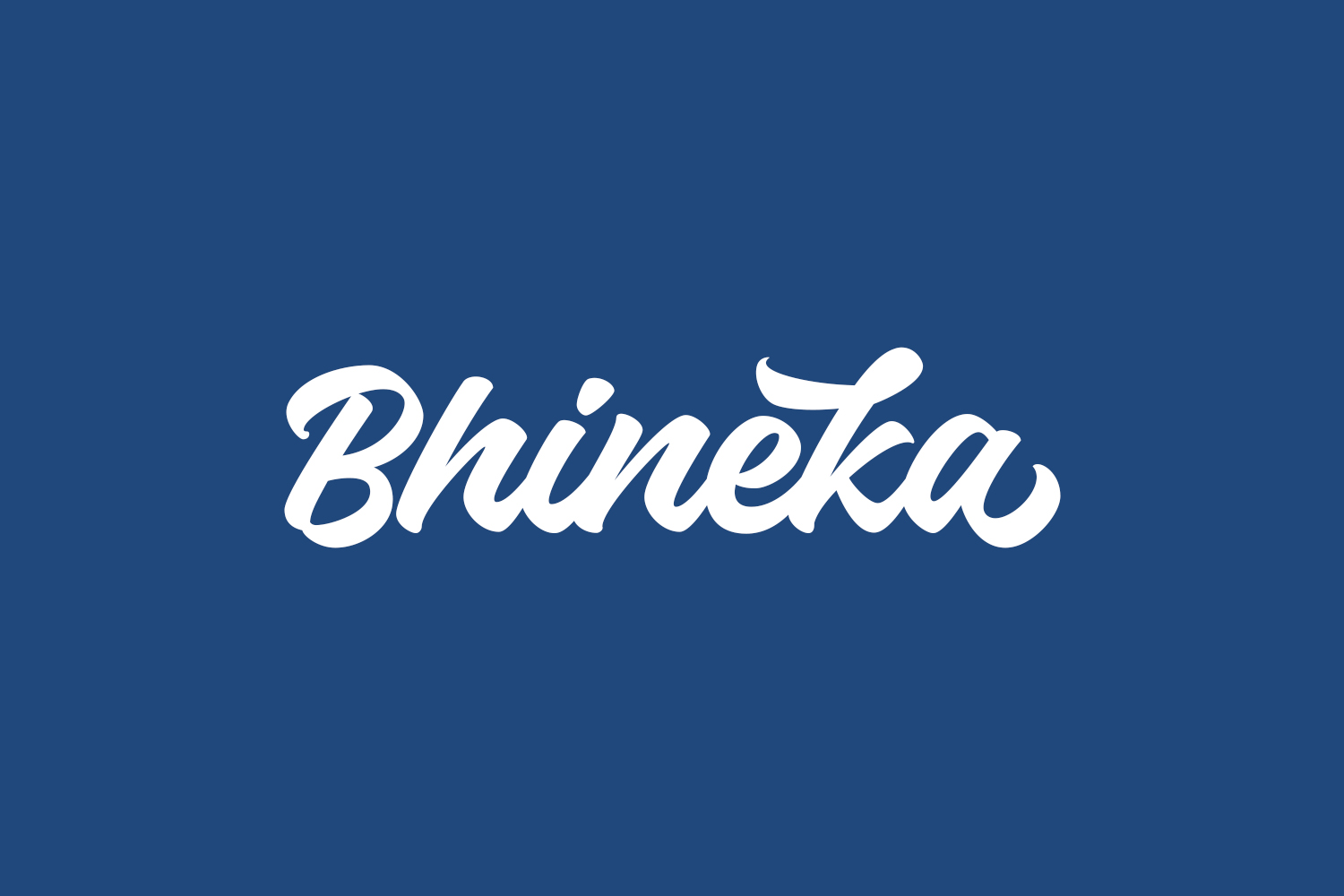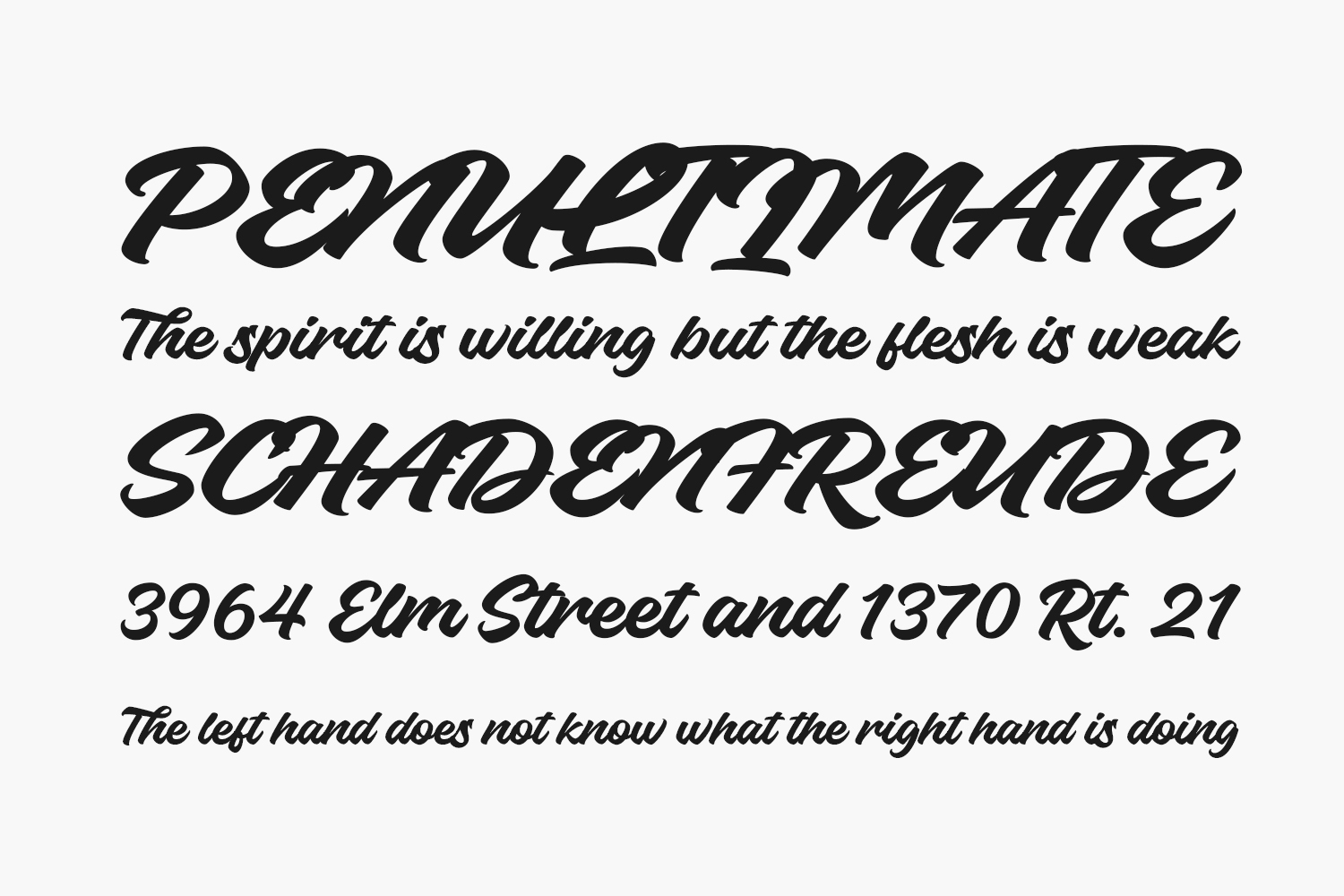
Bhineka Script Free Font is a sporty and bold script font. This font is awesome for various creative projects, including logotypes, sports logos, branding materials, product packaging, merchandise, apparel, and more. Bhineka Free Font is free for personal or commercial use.
Designed by Joel Maker Studio